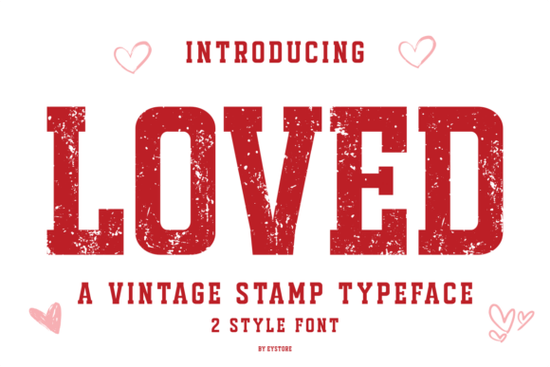
If you're looking for a versatile and charming font to add a touch of vintage elegance to your designs, the Loved Font is a fantastic choice. This typeface is designed to bring a classic, romantic feel to your projects, whether you're working on Valentine's Day cards, wedding invitations, or any other heartfelt design.
What Makes Loved Font Stand Out?
The Loved Font is inspired by classic rubber stamps, offering two distinct styles: a distressed textured style and a clean solid style. The distressed version gives an authentic, retro look, perfect for adding a nostalgic touch to your designs. On the other hand, the clean solid style provides a modern, straightforward appearance, making it versatile for a wide range of creative projects.
Perfect for Romantic and Heartfelt Designs
Whether you're a designer, crafter, or print-on-demand seller, the Loved Font is ideal for creating romantic and Valentine-inspired designs. Its strong letterforms and vintage character make it a great choice for love quotes, wedding invitations, and other heartfelt projects. The font's versatility also makes it suitable for mug designs, pillow designs, t-shirts, tote bags, greeting cards, posters, and more.
Why Choose a Distressed Font?
A distressed font like the Loved Font can add a unique, handmade feel to your designs. The texture and imperfections in the font mimic the look of old, well-worn prints, giving your projects a sense of history and authenticity. This is particularly appealing for those who want to create designs with a vintage or rustic theme.
Using Clean Solid Styles for Modern Designs
The clean solid style of the Loved Font is perfect for modern and minimalist designs. Without the texture, the font retains its bold and strong presence but in a more contemporary and polished way. This style is ideal for creating clean, professional-looking designs that still have a touch of personality and charm.
How to Use Loved Font in Your Projects
Incorporating the Loved Font into your designs is simple and can greatly enhance the overall aesthetic. Here are some tips on how to use it effectively:
- Valentine's Day Cards: Use the distressed style for a romantic, vintage feel, or the clean style for a modern, elegant look.
- Wedding Invitations: Combine both styles to add depth and interest to your designs. The distressed style can be used for headings, while the clean style can be used for body text.
- T-Shirts and Tote Bags: The bold, strong letterforms of the Loved Font make it perfect for creating eye-catching designs on fabric. Use the clean style for a modern look, or the distressed style for a more casual, vintage vibe.
- Greeting Cards and Posters: The Loved Font can add a personal touch to your greeting cards and posters. Use the distressed style for a more artistic, handcrafted feel, or the clean style for a sleek, professional look.
Final Tips for Using Loved Font
To get the most out of the Loved Font, here are a few final tips:
- Experiment with both the distressed and clean styles to see which one best fits your project.
- Pair the Loved Font with a complementary sans-serif or script font to create a balanced and visually appealing design.
- Use the font for both digital and print projects to maximize its versatility.
- Consider the context of your design use the distressed style for a more casual, vintage look, and the clean style for a modern, professional appearance.
By following these tips, you can create stunning, heartfelt designs that resonate with your audience. The Loved Font is a valuable addition to any designer's toolkit, offering both versatility and charm.